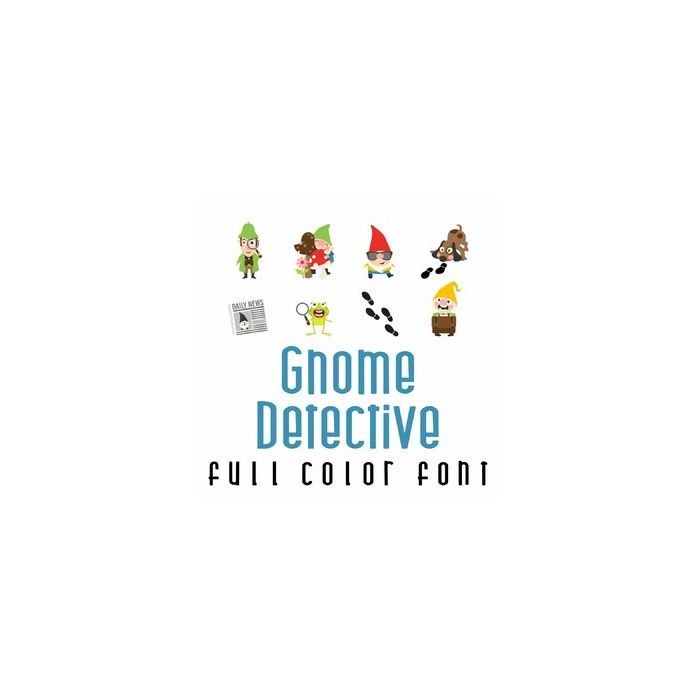
This adorable full-color doodlebat font features adorable gnomes and detective imagery. Perfect for cards, crafts, gifts, decor, scrapbook pages, planner stickers, and more!